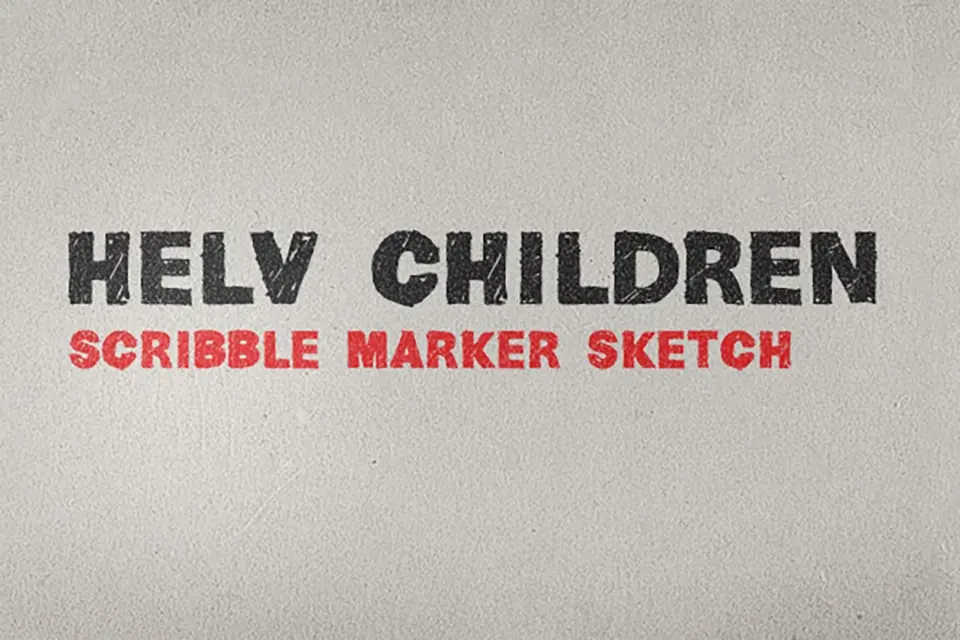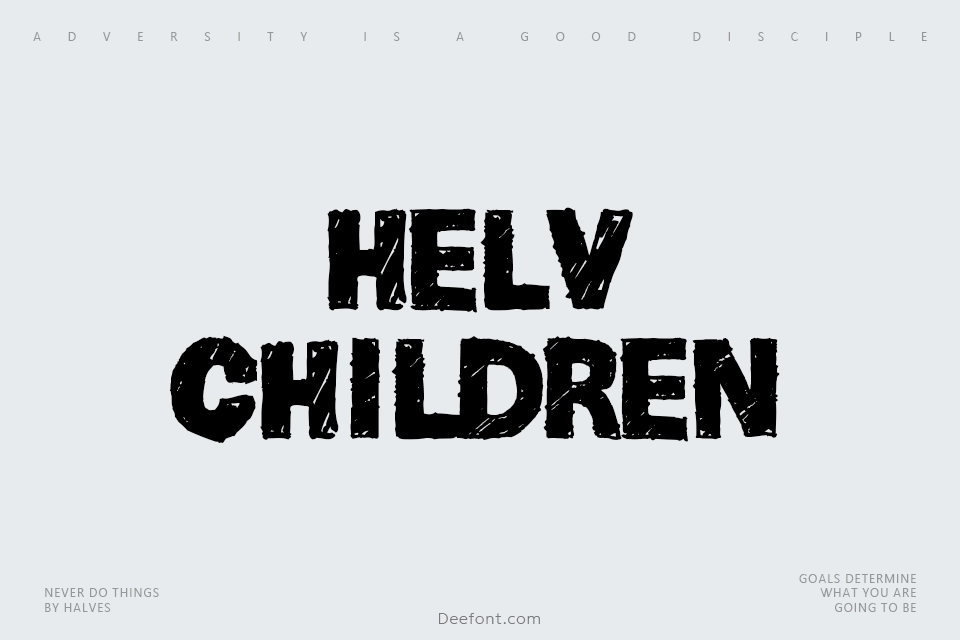
Helv Children Font
Helv Children is a bold, all-caps display font with a distinctive sketched aesthetic featuring crosshatch-filled letterforms. Designed by Matthias Guggisberg, this playful typeface offers a raw and organic appearance perfect for creative projects. With its hand-drawn quality and marker-like effect, Helv Children excels in packaging design, branding, logo creation, and poster design. The font brings personality and visual interest to any typography-focused creative endeavor, making it ideal for those seeking casual, artistic letterforms.